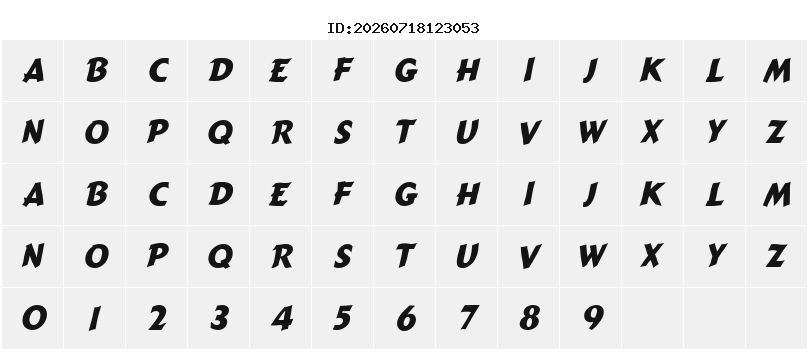
• Font Name: Cartoon Slant
• Full Font Name: Cartoon Slant Bold
Cartoon Slant.ttf is a modern, elegant sans-serif font designed for ultimate readability and visual harmony. Perfect for branding, headlines, web design, and print materials.